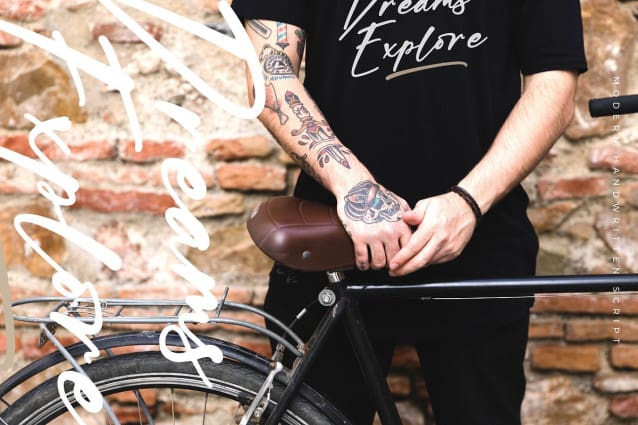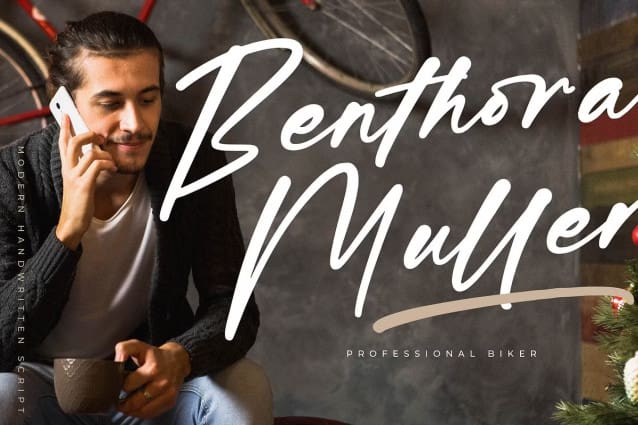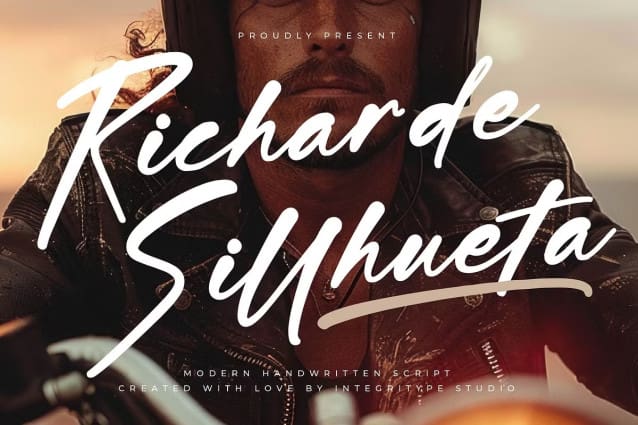
Richarde Sillhueta Font
Richarde Sillhueta Font – Modern Handwritten Font, from Integritype Studio, perfect for any project like: logos, branding projects, homewares designs, product packaging, mugs, quotes, posters, shopping bags, t-shirts, covers books, business cards, invitation cards, greeting cards, labels, photography, watermarks, special events and all your other luxury projects that require a premium taste.